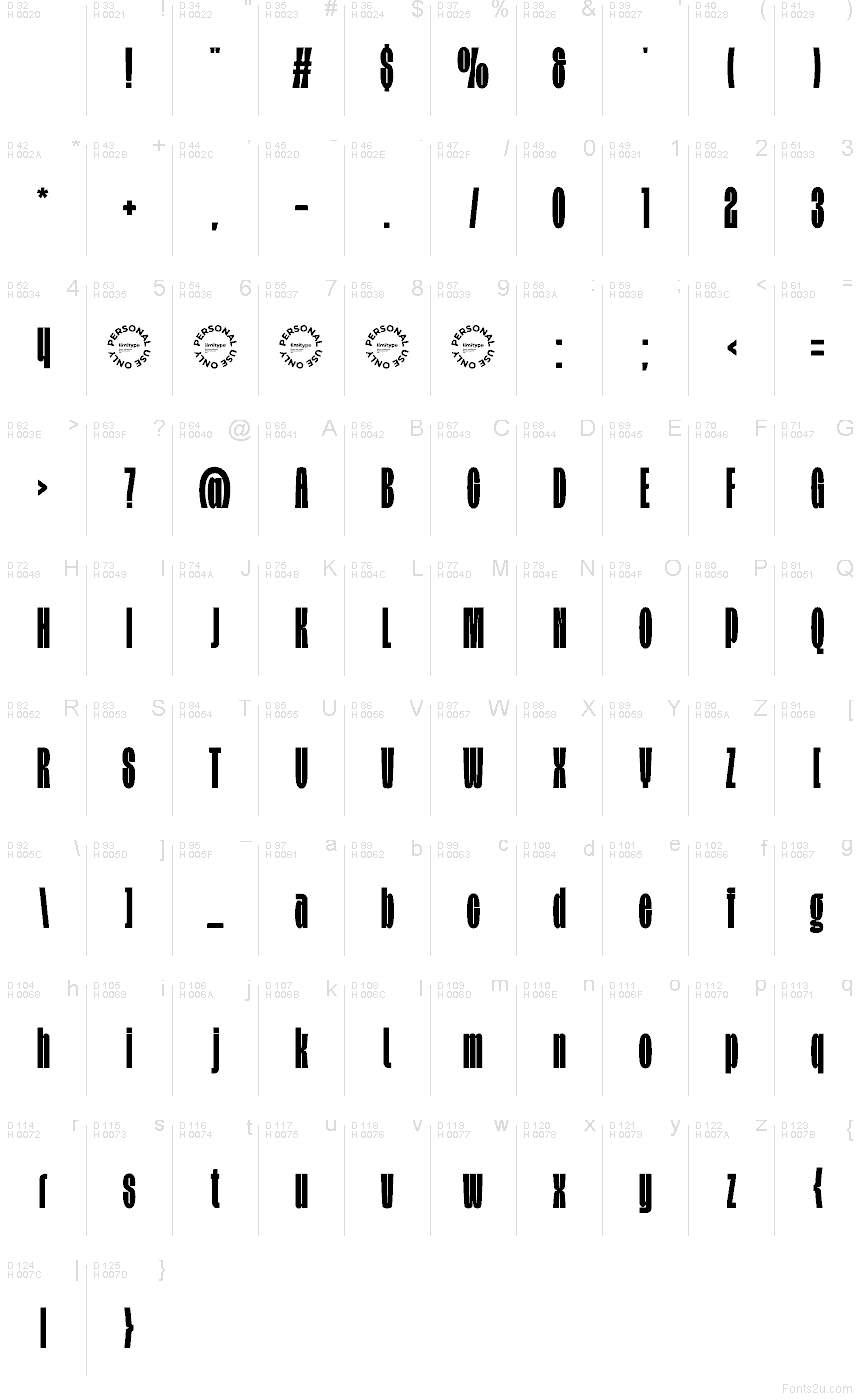
Skybold Demo
Skybold font by Limitype is a free sans serif typeface that stacks letters like towering city blocks. Ultra-condensed forms, heavy weight, and tight vertical rhythm give it a monolithic, poster-ready presence while the smooth curves keep it from feeling harsh or mechanical. It’s the kind of font that fills space with attitude, even when you don’t have much horizontal room to work with.
Using Skybold, headlines feel loud and cinematic, making this free font a natural fit for posters, album covers, movie titles, bold branding, event flyers, and social media graphics. Set it large for maximum punch, then pair it with a simple, airy grotesque or geometric sans for body text to keep layouts readable and balanced.
Skybold font by Limitype is a free sans serif typeface that stacks letters like towering city blocks. Ultra-condensed forms, heavy weight, and tight vertical rhythm give it a monolithic, poster-ready presence while the smooth curves keep it from feeling harsh or mechanical. It’s the kind of font that fills space with attitude, even when you don’t have much horizontal room to work with.
Using Skybold, headlines feel loud and cinematic, making this free font a natural fit for posters, album covers, movie titles, bold branding, event flyers, and social media graphics. Set it large for maximum punch, then pair it with a simple, airy grotesque or geometric sans for body text to keep layouts readable and balanced.